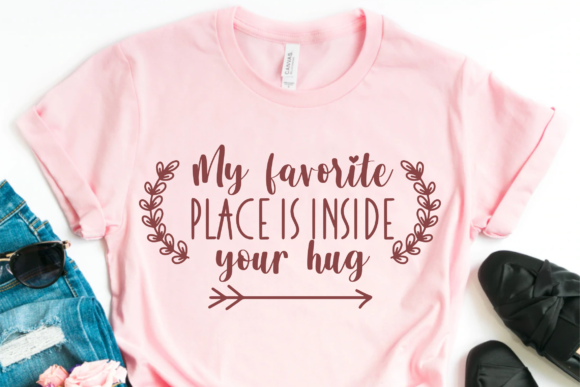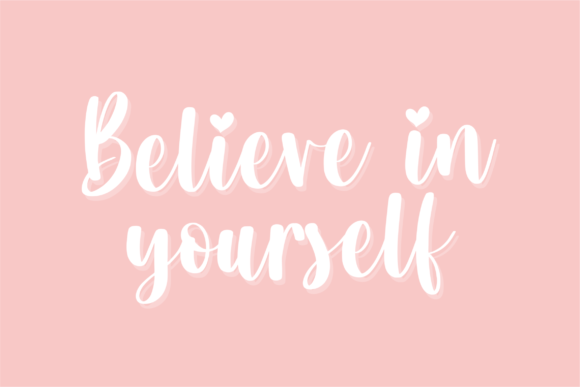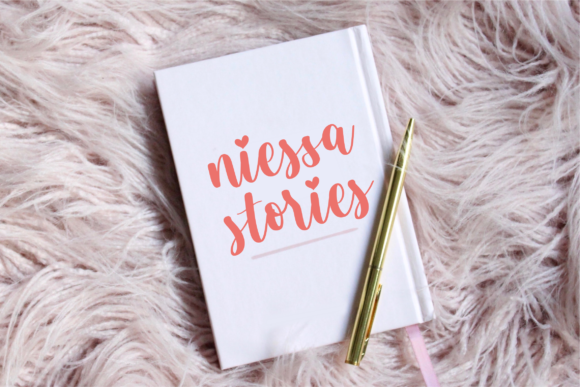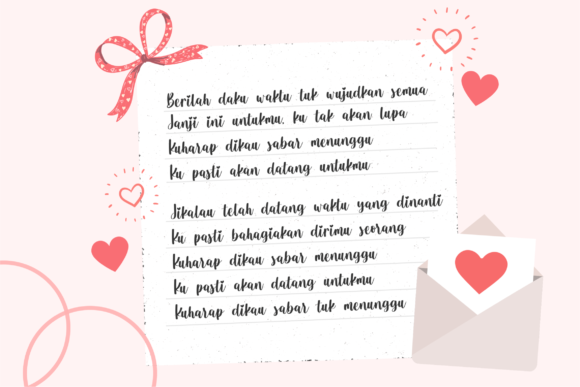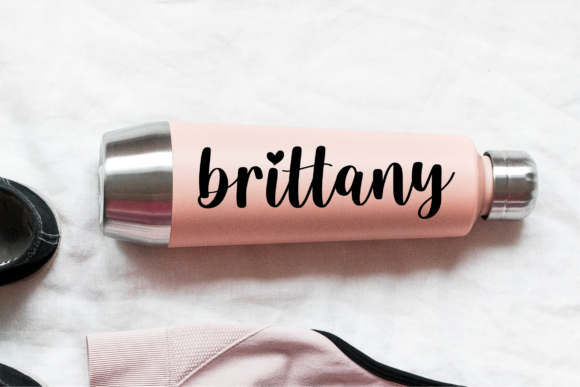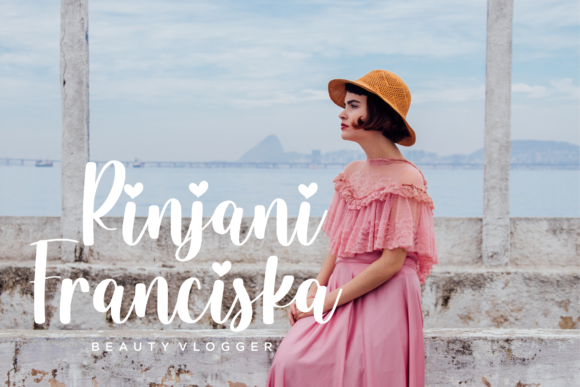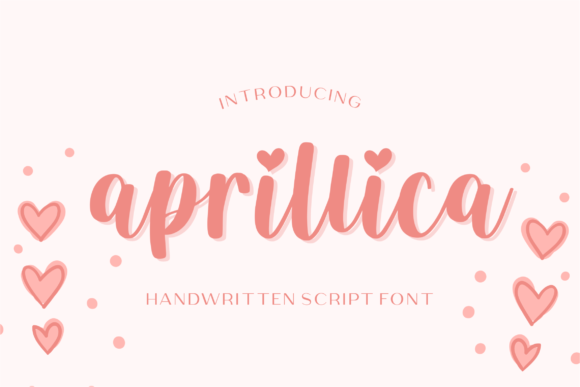
Introducing Aprillica Font: Elevate Your Designs with Elegance and Style
Are you a designer or crafter looking for a font that can add a touch of sophistication and glamour to your projects? Look no further than Aprillica Font, a beautiful and stylish script font that is perfect for a wide range of applications. From product packaging and branding projects to magazine covers, social media graphics, and wedding designs, Aprillica Font is the ideal choice for anyone seeking to elevate their designs with elegance and style.
The Perfect Font for Creative Projects
Aprillica Font is a versatile and eye-catching script font that can add a touch of luxury and refinement to any design project. Its elegant and flowing lines make it perfect for use in a variety of creative projects, including:
• Product packaging: Add a touch of sophistication to your product packaging with Aprillica Font, making your products stand out on store shelves.
• Branding projects: Use Aprillica Font to create a cohesive and stylish brand identity that reflects your company’s values and personality.
• Magazine covers: Grab the attention of readers with a stunning magazine cover featuring Aprillica Font, perfect for fashion, lifestyle, and beauty publications.
• Social media graphics: Elevate your social media presence with eye-catching graphics featuring Aprillica Font, perfect for Instagram, Facebook, and Twitter.
• Wedding designs: Make your wedding stationery, invitations, and decorations truly special with the elegant and romantic touch of Aprillica Font.
Key Features of Aprillica Font
Aprillica Font boasts a range of features that make it the perfect choice for designers and crafters. Some of its key features include:
• Beautiful and stylish script font with elegant and flowing lines
• Perfect for a wide range of creative projects, from product packaging to wedding designs
• Easy to read and understand, making it perfect for use in body text or headlines
Why Choose Aprillica Font?
With so many fonts available, why choose Aprillica Font for your design projects? Here are just a few reasons why Aprillica Font stands out from the crowd:
• Unique and stylish design that will make your projects stand out
Tips for Using Aprillica Font
To get the most out of Aprillica Font, here are a few tips to keep in mind:
• Use Aprillica Font as a headline font to grab attention and add a touch of elegance to your designs
• Pair Aprillica Font with a clean and simple sans-serif font for a stylish and modern look
• Experiment with different colors and textures to add depth and interest to your designs
• Use Aprillica Font to add a personal touch to your designs, making them truly unique and special
Aprillica Font is a beautiful and stylish script font that is perfect for designers and crafters looking to elevate their designs with elegance and style. With its elegant and flowing lines, versatility, and range of features, Aprillica Font is the ideal choice for a wide range of creative projects. Whether you’re looking to create stunning product packaging, branding projects, magazine covers, social media graphics, or wedding designs, Aprillica Font is the perfect choice. So why wait? Download Aprillica Font today and start creating stunning designs that will leave a lasting impression.